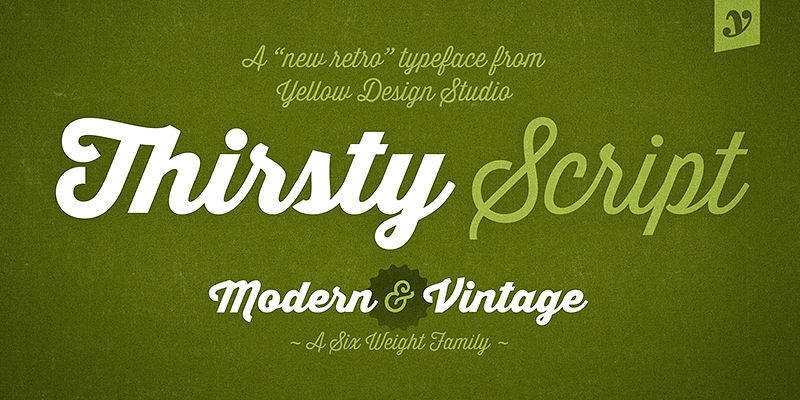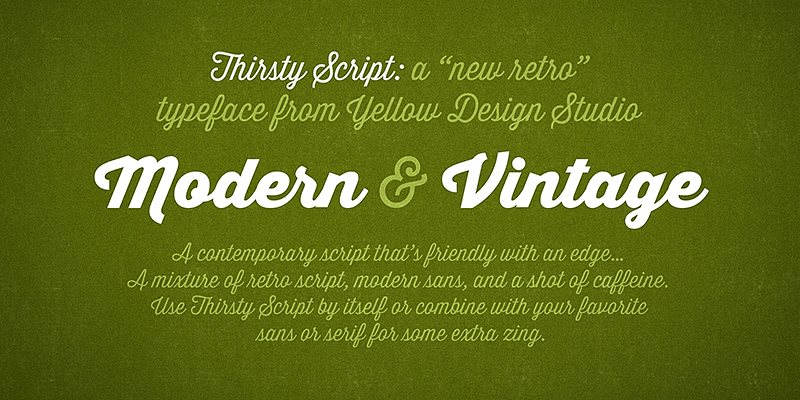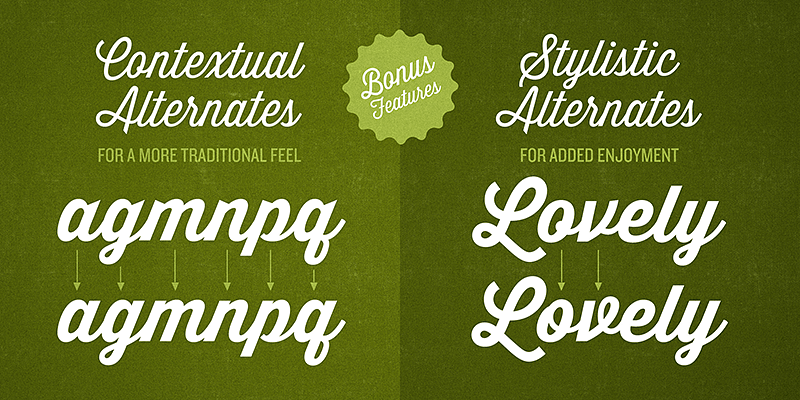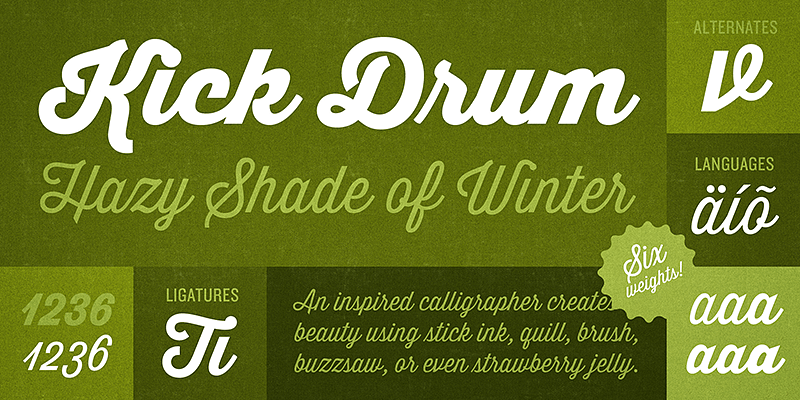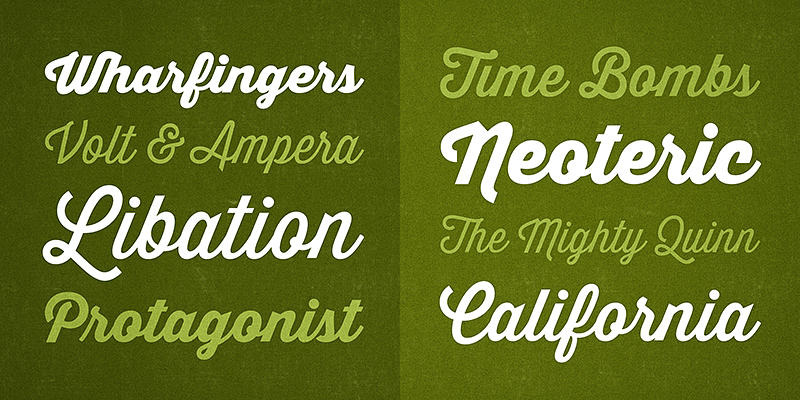
Thirsty Script is a contemporary script conceived as a marriage of elements from vintage signage scripts, Wisdom Script, Deftone Stylus, Lobster, and even Proxima Nova. The result is a typeface with a ‘new meets vintage’ vibe. It’s friendly with an edge…a mixture of retro script, modern sans serif, and a shot of caffeine. Features include six weights from Light to Black, old-style figures, alternates (for a more traditional feel), and a handy selection of ligatures.